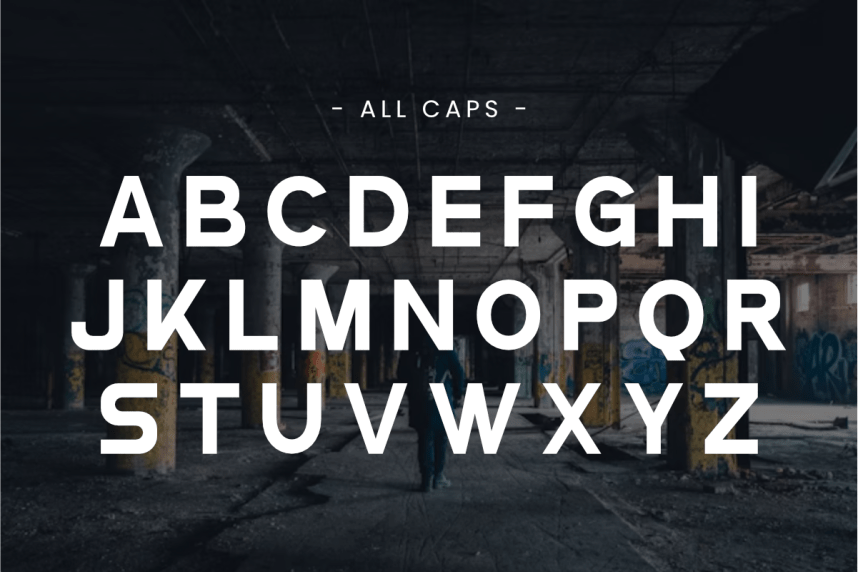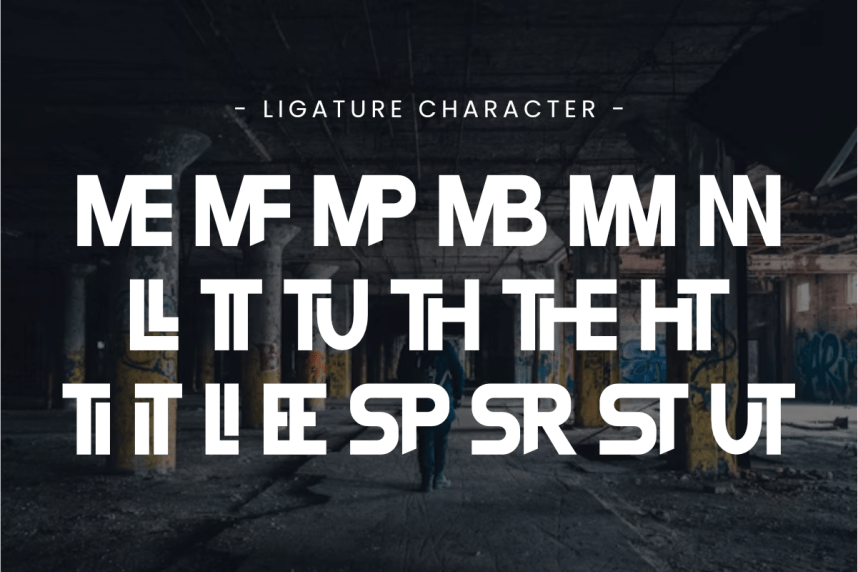
Comback Sans Serif Font
Comeback is a condensed sans serif font with a bold and modern look, designed to deliver strength and confidence in every letterform. With its clean lines and geometric structure, this font is perfect for t-shirt design, Cricut and Silhouette crafts, posters, logos, branding, and bold headlines.
Whether used for print-on-demand products, apparel, stickers, mugs, or social media graphics, Comeback ensures your design stands out with a sleek, professional, and versatile style.